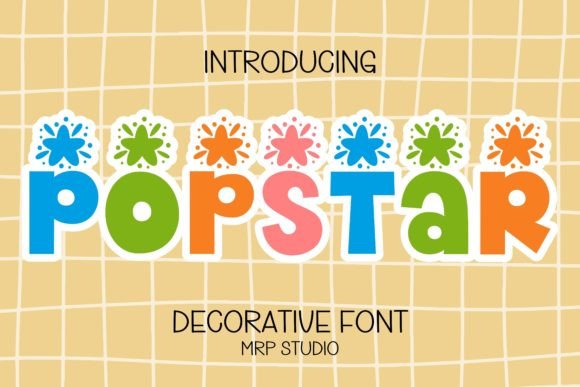
Introducing Popstar Font: A Delightful Symphony of Creativity for Every Occasion
Step into a world of charm and whimsy with Popstar Font, a captivating decorative font family that brings a touch of magic to your creative projects. Designed by the talented team at MRP STUDIO, Popstar is an expression of joy and cheer, crafted with care to make your words dance and your designs sparkle.
With its playful style and adorable curves, Popstar is the perfect choice for adding a pop of personality to your colorful Christmas projects, mom projects, and back-to-school adventures. Create party decorations that are bursting with energy, invitations that spark curiosity, and posters that command attention. Let your creativity soar as you design blogs, clothing, and greeting cards that radiate warmth and charm.
Whether you're crafting social media posts that demand attention or adding a friendly touch to your designs, Popstar is your go-to font. Its versatility knows no bounds, allowing you to effortlessly create projects that shine with charm and individuality.
Let your imagination run wild as you explore the many possibilities that Popstar Font offers. From birthday cards that bring smiles to faces to posters that capture hearts, there's no limit to what you can achieve. Experience the joy of creating with Popstar and let your designs bloom with creativity.